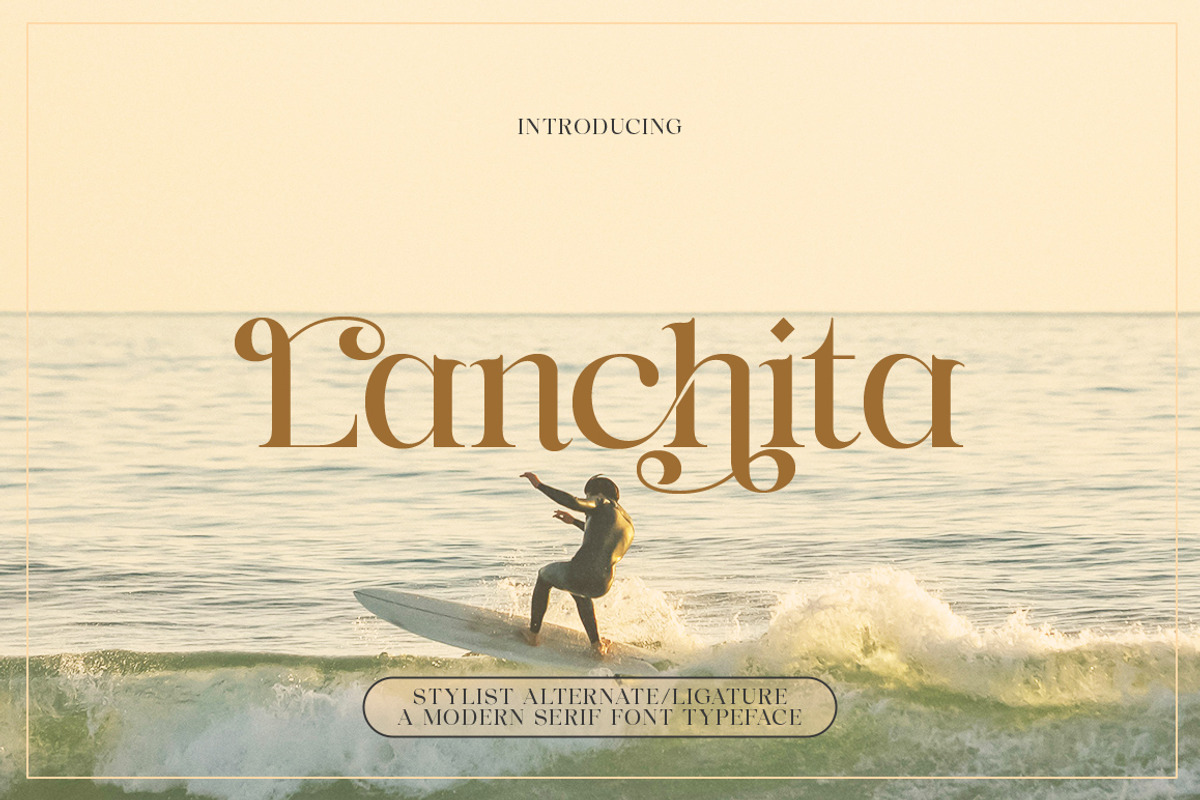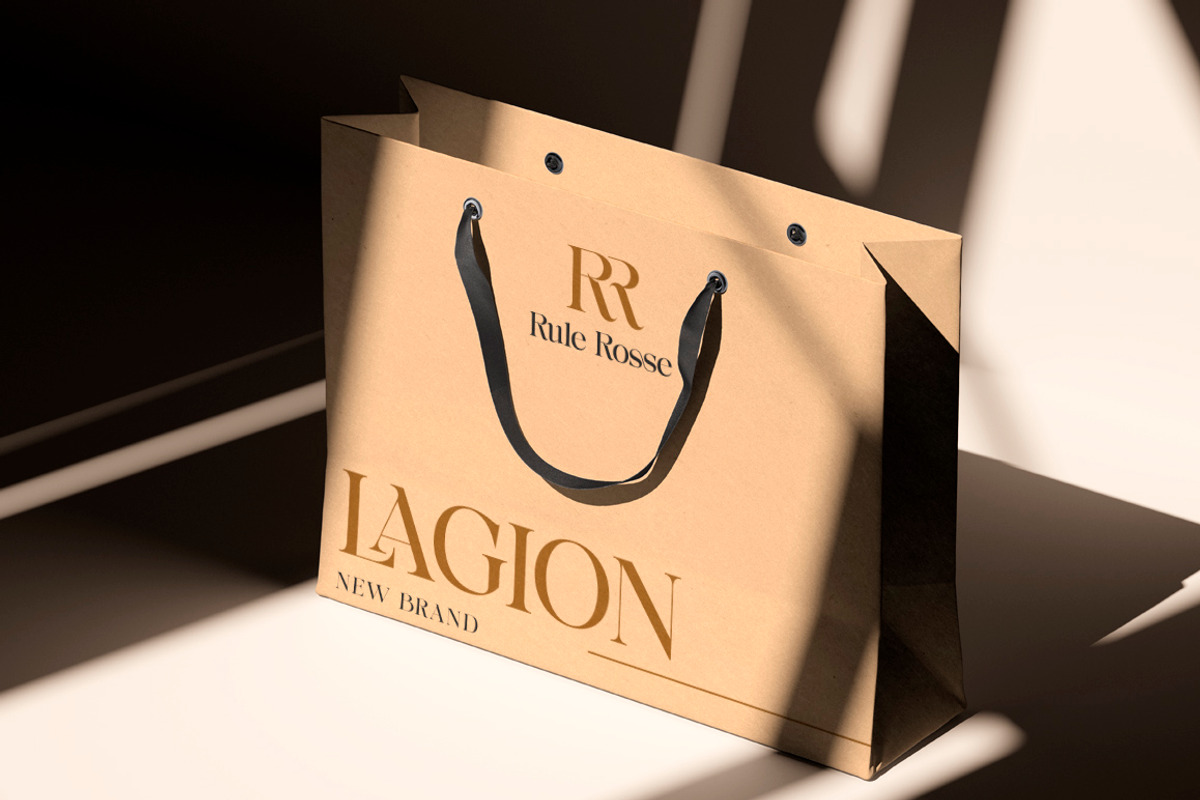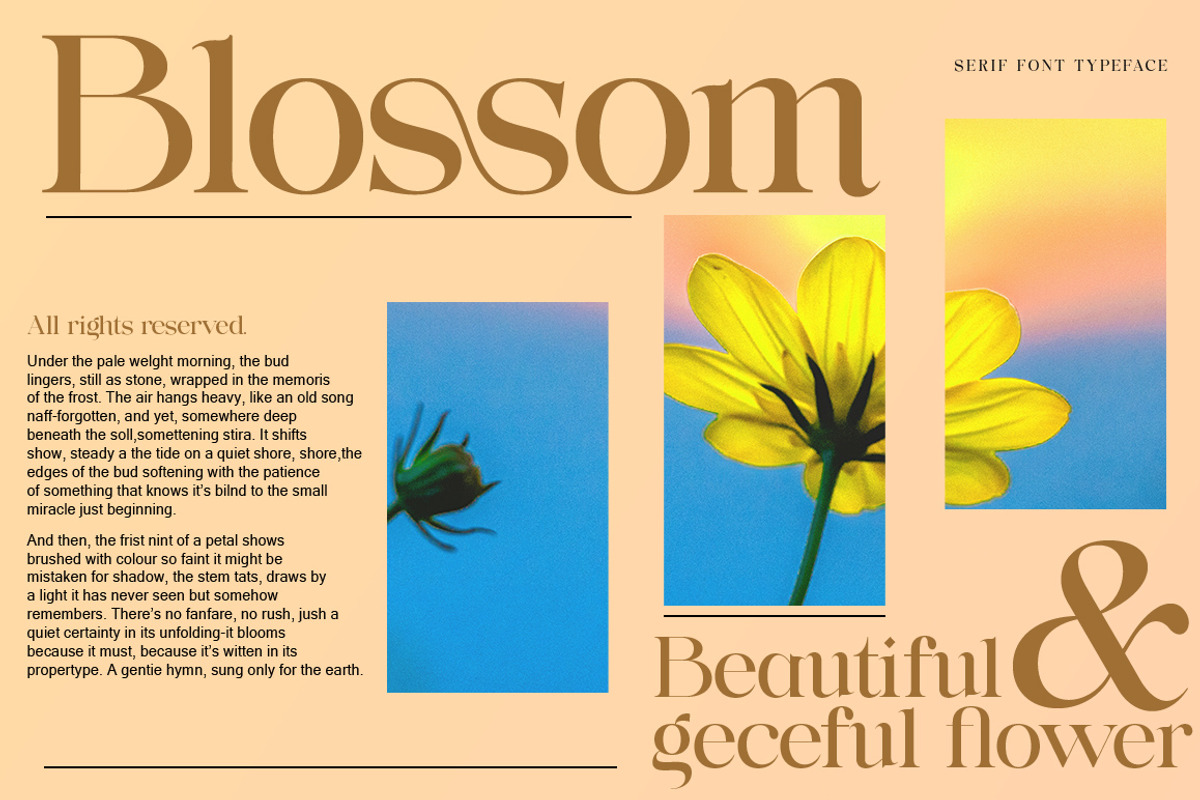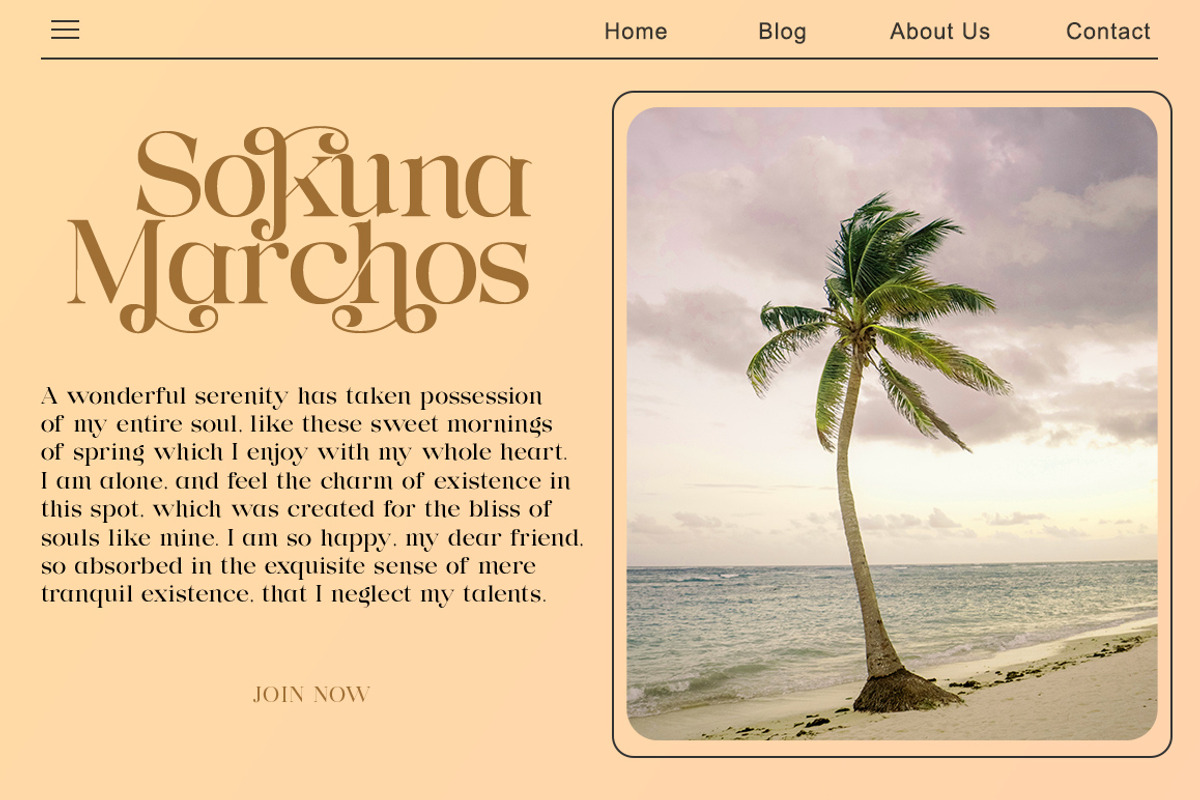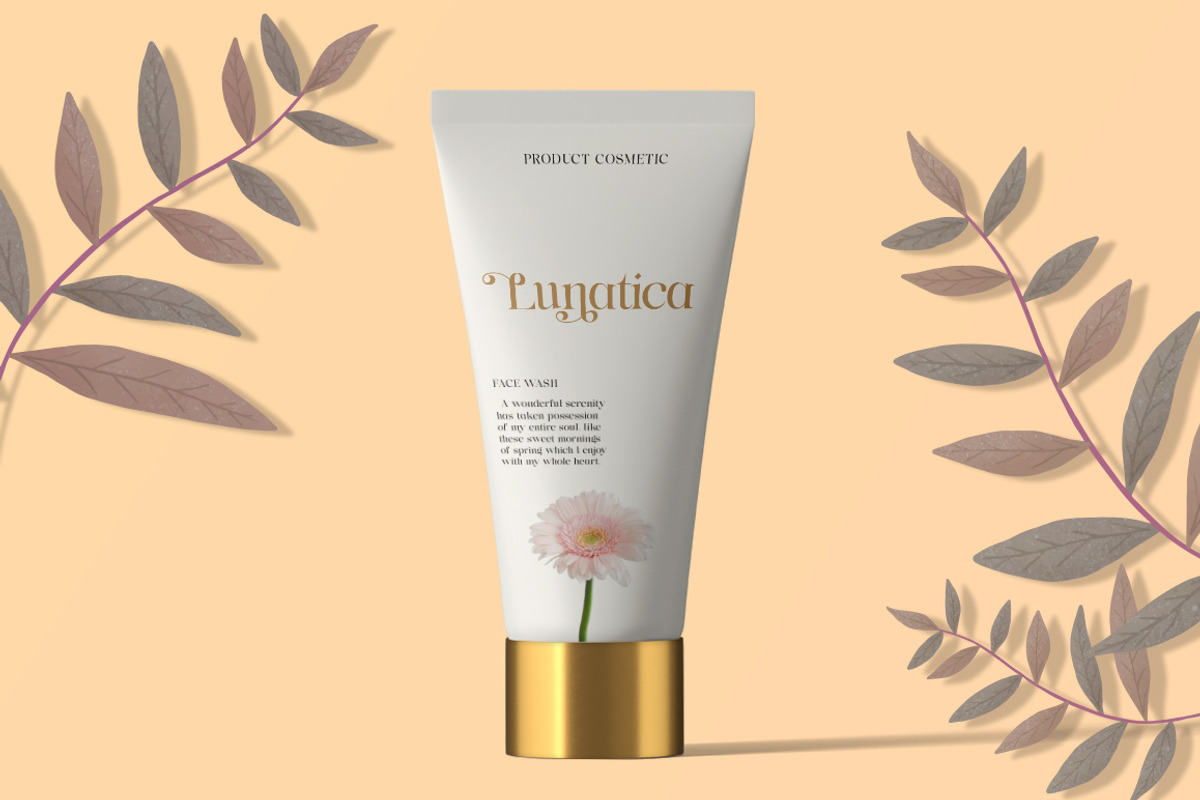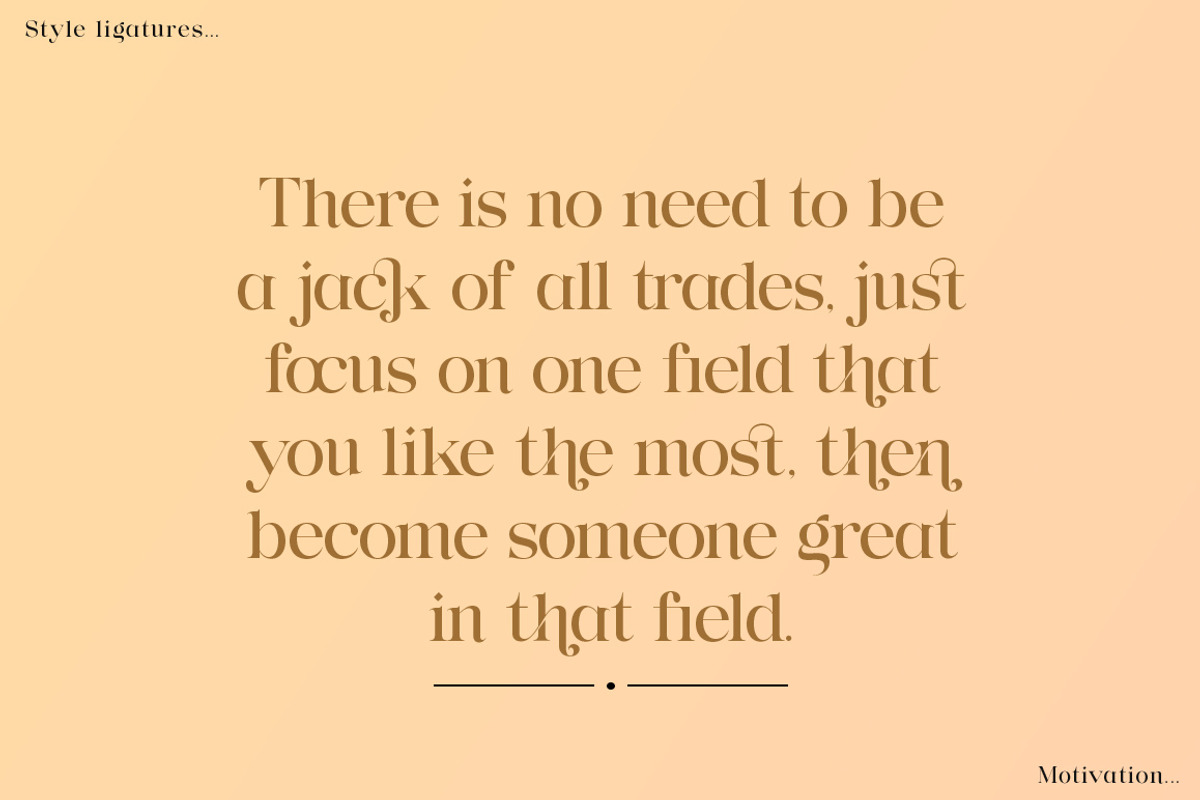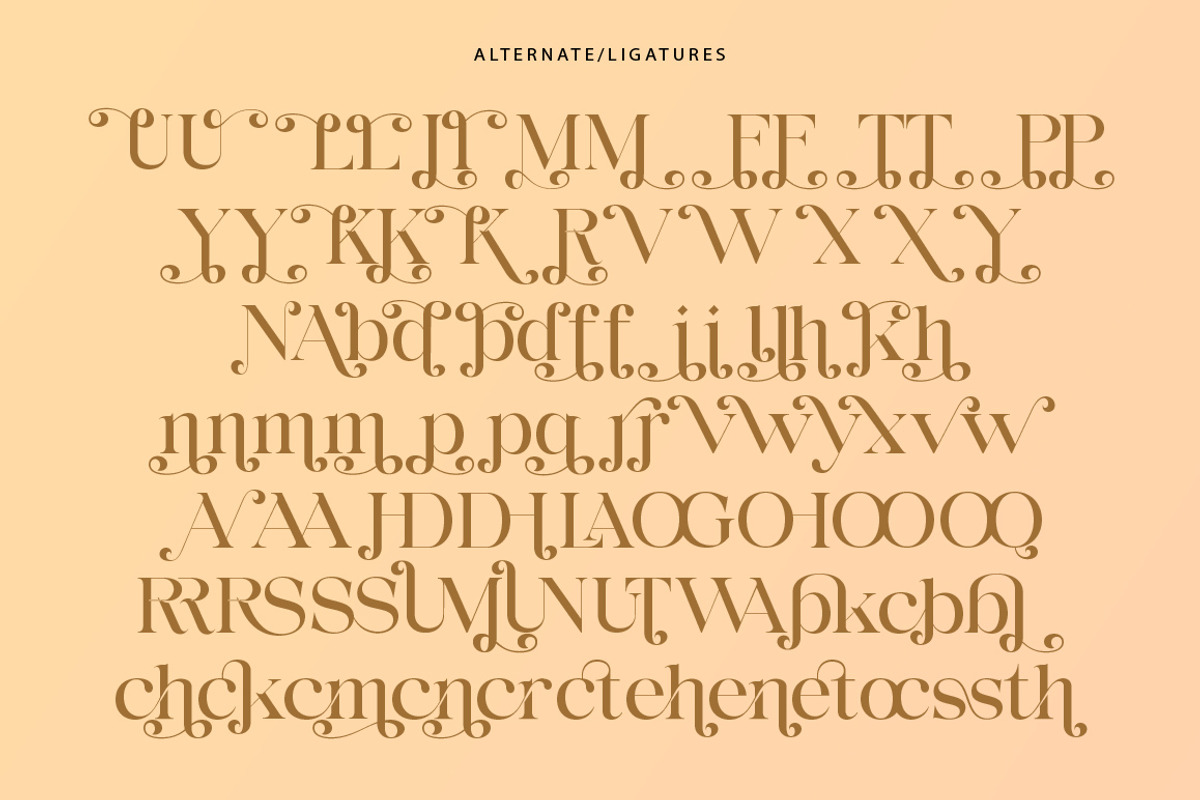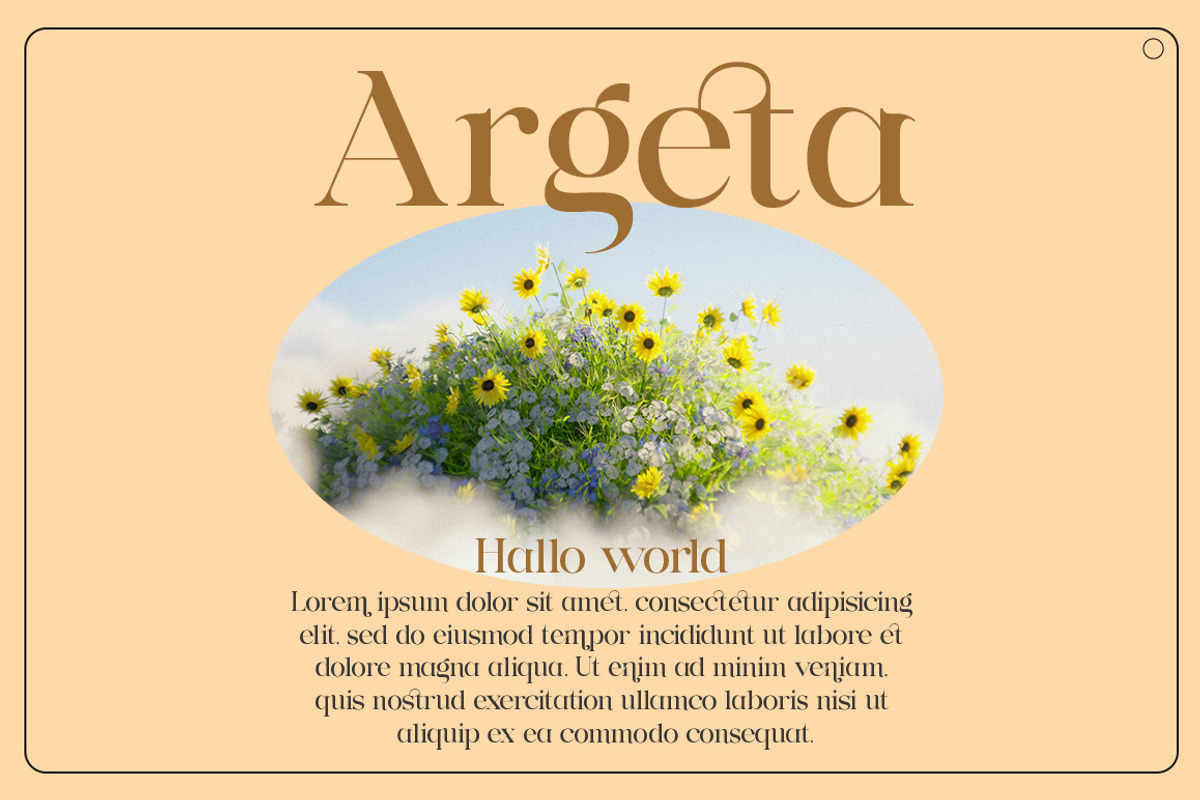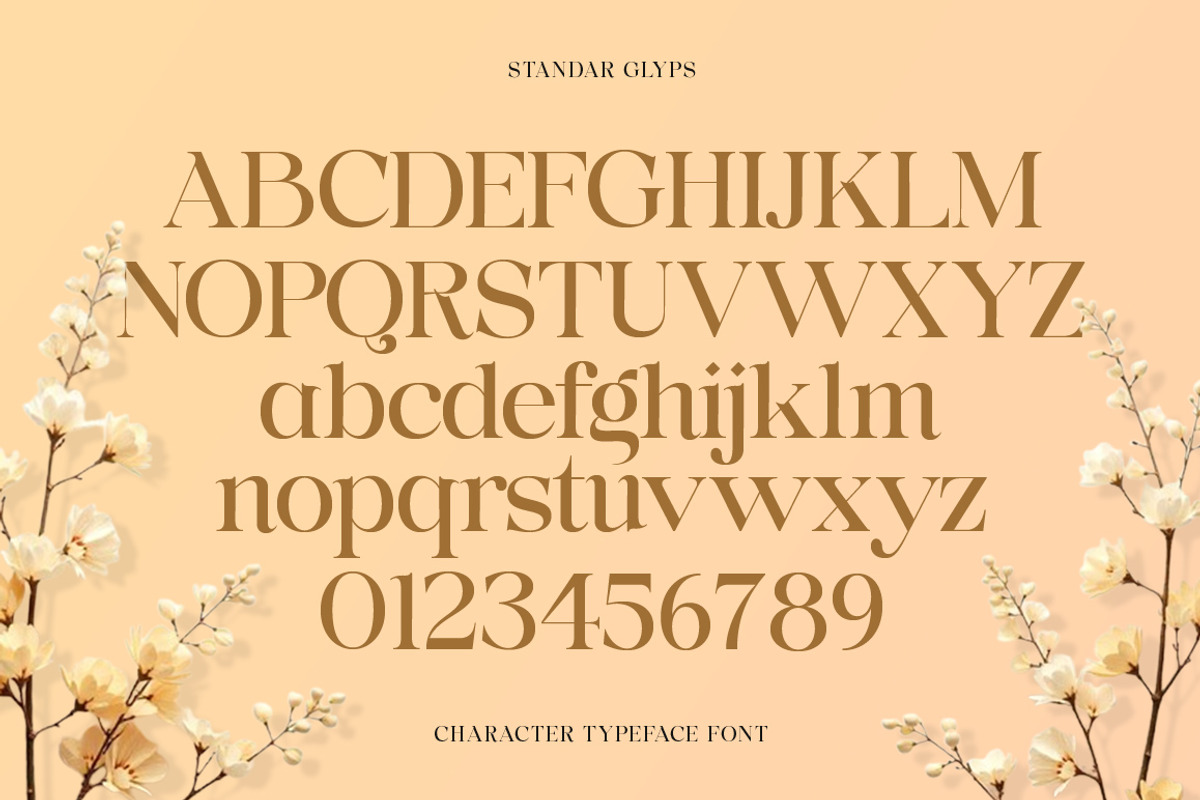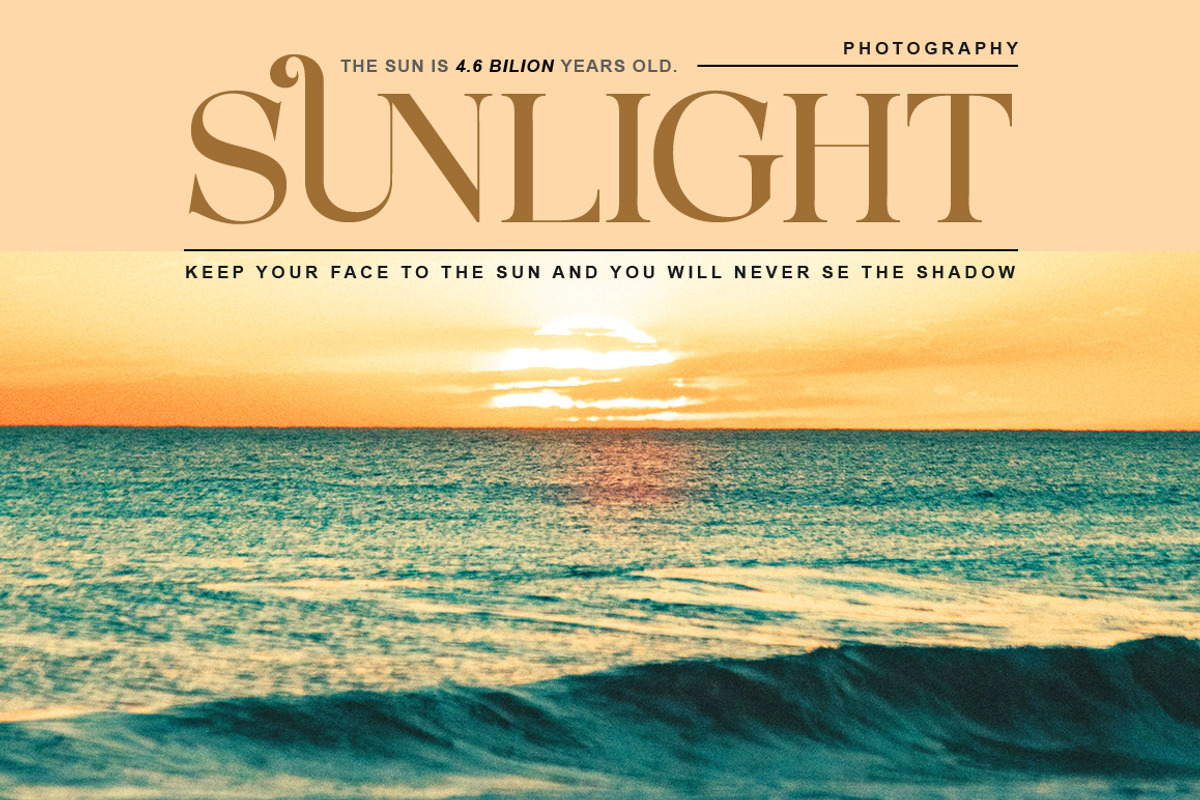
Lanchitas
Lanchitas is a classic serif family that has a modern, luxurious, and glamorous look. You can use this font family for various purposes such as wedding invitations, logos, and branding. And if you are looking for a timeless serif look, this font might be the one for you. Lanchitas also supports multiple languages!
Lanchitas serif style is a modern Display font, each letter is carefully crafted to make your text look unique. Feel free to message me if you have any questions!